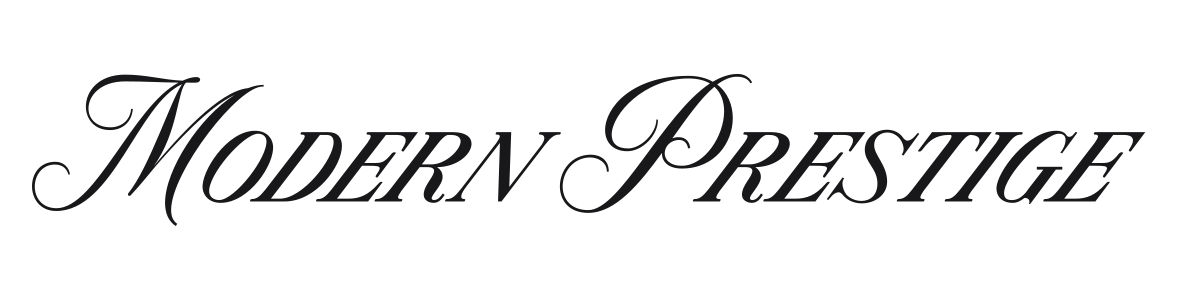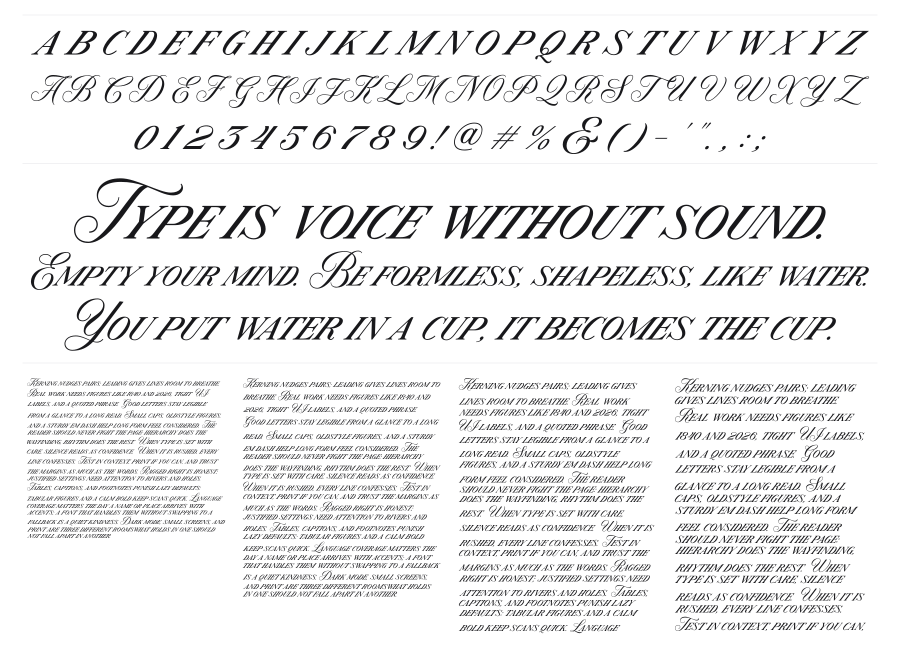
Modern Prestige
Modern Prestige is a high-contrast italic serif that channels the drama of Didone typography through extreme weight variation between thick stems and hairline strokes. The sharp, condensed forms and strong forward slant give it a bold editorial presence. It reads as confident and luxurious at headline sizes.